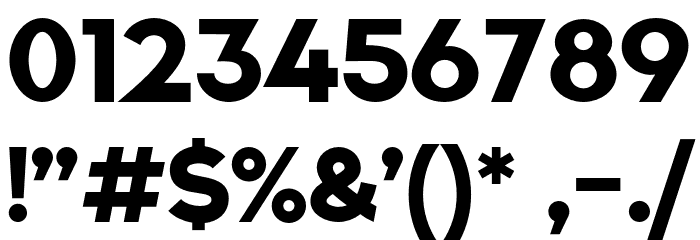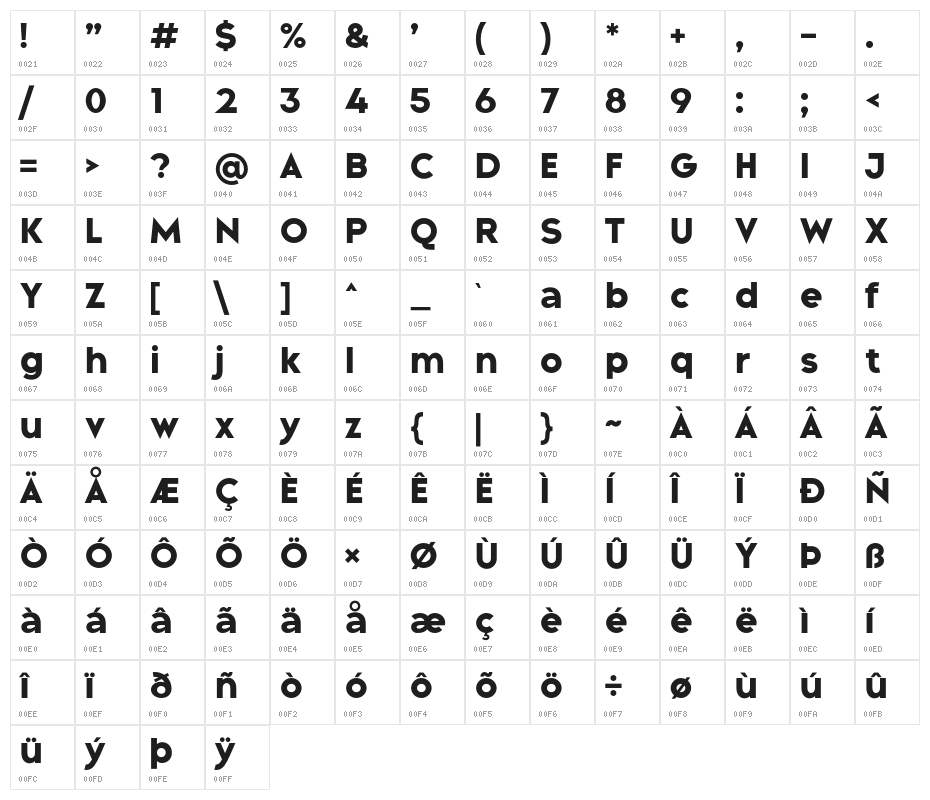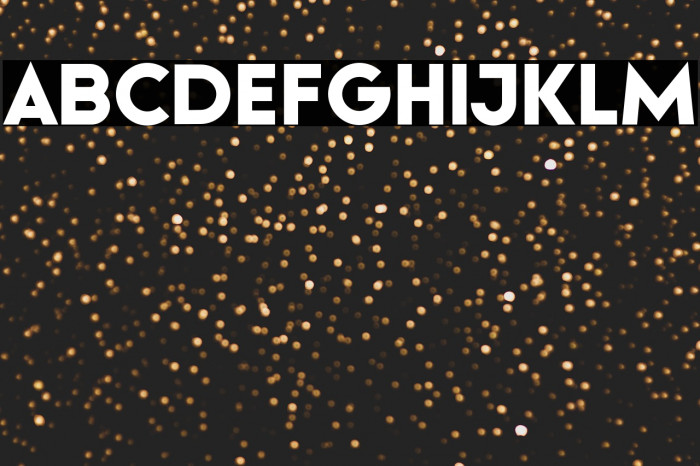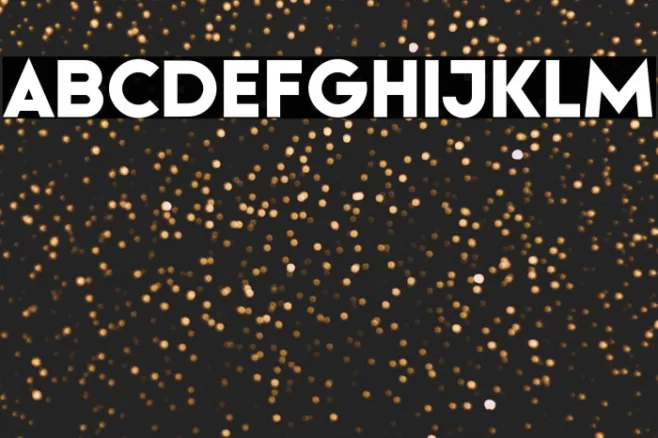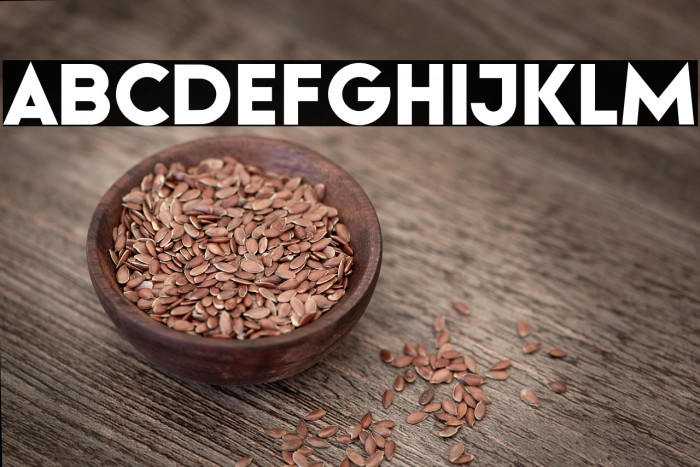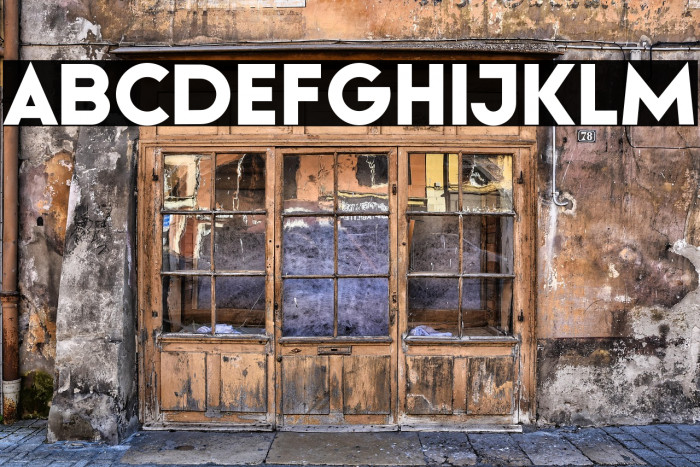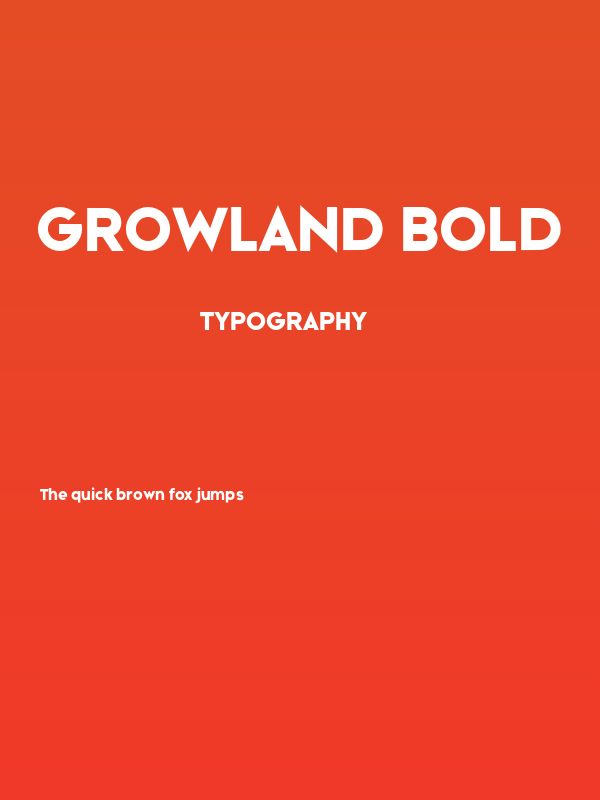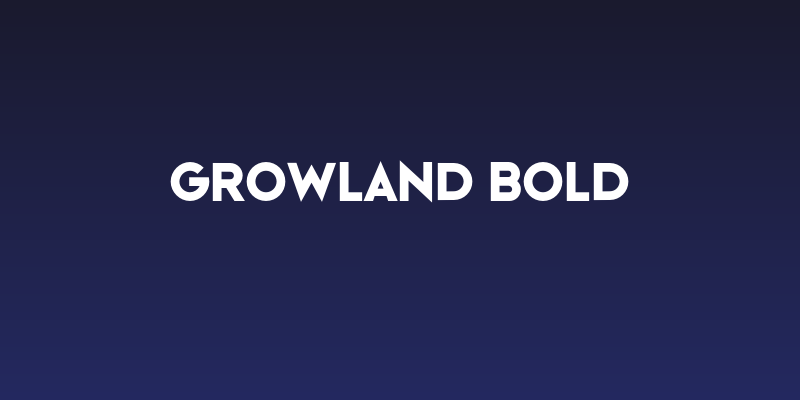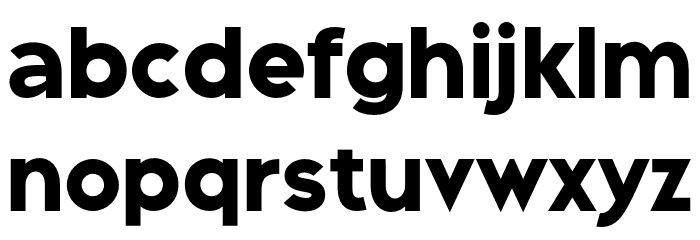
Growland Bold Font
Growland Bold Description
This typeface features a bold and assertive style with clean, geometric lines and a modern aesthetic. The uppercase letters are strong and impactful, while the lowercase letters maintain a consistent weight and structure, providing a harmonious balance. The numerals are clear and legible, designed to stand out with their bold presence. Special characters are crafted with precision, ensuring they complement the overall design. The font's uniformity and clarity make it suitable for a variety of applications, offering a contemporary look that is both versatile and eye-catching.
| Proposed Projects | Ideal for branding, advertising, headlines, and digital media where a strong visual impact is desired. |